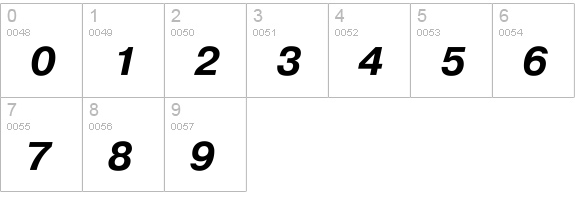
Pragmatica Bold Oblique Font Details
Pragmatica Bold Oblique is a strong, high-contrast, italic variant in the Pragmatica typeface family \xE2\x80\x94 well suited to headlines, attention-grabbing titles, and strong calls-to-action.
Pragmatica Bold Oblique font exudes a sense of modernity and sophistication with its sleek and stylish design. The slanted italic angles add a dynamic flair to the bold weight, making it perfect for creating eye-catching headlines and emphasis in various design projects. The sharp edges and clean lines of this typeface convey a sense of professionalism and efficiency, making it ideal for corporate branding and editorial design. Moreover, Pragmatica Bold Oblique font is not only visually appealing but also highly practical and versatile. Its legibility and readability make it suitable for both print and digital platforms, ensuring that your message will be conveyed clearly and effectively to your audience. Whether used in posters, advertisements, websites, or packaging, this font will make a bold statement and leave a lasting impression. Best of all, Pragmatica Bold Oblique font is freely available to download at FontsMarket.com, allowing you to access this premium typeface at no cost. Don't miss out on the opportunity to enhance your designs with this exceptional font that combines pragmatism with elegance. Download Pragmatica Bold Oblique today and elevate your design projects to new heights of creativity and professionalism.